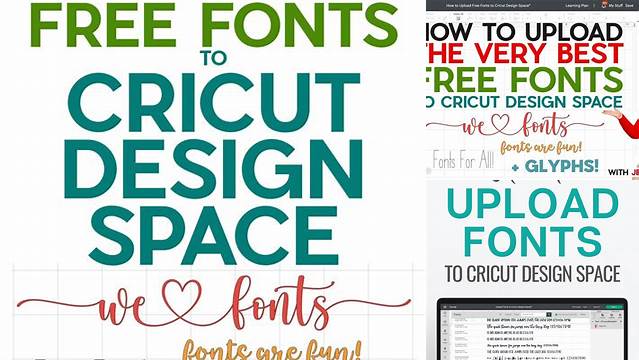
Upload Free Fonts To Cricut Design Space: A Quick Guide
Hey crafters! Want to give your Cricut projects a personal touch? Uploading free fonts to Cricut Design Space is the way to go. It's easier than you think, and opens up a world of creative possibilities. Let's dive in!
1. Finding the Perfect Free Font
Okay, first things first, let's talk about finding some awesome free fonts. There are tons of websites out there offering amazing fonts that won't cost you a dime. Some of my go-to spots include DaFont, FontSpace, and Google Fonts. When you're browsing, keep in mind what kind of projects you usually work on. Need something elegant for wedding invites? Or maybe something fun and playful for kids' crafts? Think about the overall aesthetic you're going for. Make sure to check the font license too! Most free fonts are free for personal use, but if you're planning to sell your creations, you'll want to make sure the license allows for commercial use. It's always better to be safe than sorry, guys! Once you've found a font that speaks to your soul, download it to your computer. Usually, it'll come in a ZIP file, so be prepared to unzip it.
Remember, your design is only as good as your font! Choosing the right one can really elevate your project from 'meh' to 'wow'. So, take your time, explore different options, and don't be afraid to experiment. Happy font hunting!
6. Understanding Font Licensing
Let's chat about something super important: font licensing. I know it might sound boring, but trust me, it's crucial to understand, especially if you're planning to sell anything you make with these fonts. Basically, a font license is a legal agreement that outlines how you're allowed to use a particular font. Some fonts are free for personal use only, which means you can use them for your own crafting projects, but you can't sell anything you make with them. Other fonts have commercial licenses, which means you can use them to create products that you sell. It's really important to check the license for each font before you use it, especially if you're planning to make money off your creations. You can usually find the license information on the website where you downloaded the font. Look for terms like "personal use," "commercial use," or "extended license." If you're not sure about the license, it's always best to err on the side of caution and contact the font designer or the website where you downloaded the font. Nobody wants to get into legal trouble over a font, so do your research and make sure you're using fonts legally and ethically.
7. Organizing Your Font Collection
Okay, so you've started downloading free fonts like crazy, and now your computer is a total font jungle. Don't worry, I've been there! It's time to get organized. Creating a system for organizing your fonts will save you tons of time and headaches in the long run. One simple way to organize your fonts is to create folders on your computer. You could have folders for different font styles, like "Script Fonts," "Sans Serif Fonts," and "Display Fonts." Or you could organize them by project type, like "Wedding Fonts" and "Kids' Fonts." Another great way to organize your fonts is to use a font management program. There are tons of font management programs out there, both free and paid. These programs allow you to preview your fonts, activate and deactivate them, and even tag them with keywords. This can make it super easy to find the perfect font for your project. No matter how you choose to organize your fonts, the key is to be consistent. Develop a system that works for you and stick to it. Your future self will thank you!
8. Exploring Different Font Styles
The world of fonts is vast and exciting! There are so many different font styles out there, each with its own unique personality. Exploring different font styles can really help you elevate your crafting projects. Some popular font styles include serif fonts, which have those little decorative strokes at the ends of the letters; sans serif fonts, which are clean and modern; script fonts, which mimic handwriting; and display fonts, which are bold and eye-catching. When choosing a font style for your project, think about the overall mood and message you want to convey. A serif font might be perfect for a formal invitation, while a script font could be great for a heartfelt card. Don't be afraid to experiment with different font styles and see what works best for you. You might be surprised at what you discover!
9. Pairing Fonts Like a Pro
Font pairing is an art, guys! Knowing how to combine different fonts effectively can take your designs to the next level. The key to successful font pairing is to create contrast. You want to choose fonts that complement each other without being too similar. A classic pairing is a serif font with a sans serif font. For example, you could use a serif font for your headings and a sans serif font for your body text. Another good rule of thumb is to choose one decorative font and one neutral font. This will prevent your design from looking too busy or overwhelming. There are tons of resources online that can help you with font pairing. Websites like FontPair and Canva's Font Combinations tool offer suggestions for fonts that work well together. Don't be afraid to experiment and try out different combinations until you find something you love. Trust your gut and have fun with it!
10. Creating Monograms with Free Fonts
Monograms are super popular in crafting, and using free fonts to create them is a fantastic way to personalize your projects. A monogram is a design that combines two or more letters, usually initials. They're often used on things like wedding invitations, personalized gifts, and home decor items. To create a monogram, start by choosing a font that you love. Script fonts and elegant serif fonts often work well for monograms. Then, use a graphics program like Cricut Design Space to arrange the letters in a visually appealing way. You can overlap the letters, create a circular design, or add decorative elements like swirls and flourishes. There are tons of monogram tutorials online that can give you inspiration. Get creative and have fun with it!
11. Using Fonts for Quotes and Sayings
Adding quotes and sayings to your crafting projects is a great way to express yourself and add a personal touch. Choosing the right font can really make your quote stand out. When selecting a font for a quote, consider the tone and message of the quote. A playful quote might call for a fun and whimsical font, while an inspirational quote might look best in a classic and elegant font. Think about the overall design of your project and choose a font that complements it. Make sure the font is easy to read, even at smaller sizes. Experiment with different font sizes and styles to create visual interest.
12. Designing Invitations with Free Fonts
Creating your own invitations is a fun and affordable way to personalize your special events. Using free fonts can help you create stunning invitations without breaking the bank. When designing invitations, choose fonts that reflect the style and theme of your event. For a formal wedding invitation, you might choose an elegant script font or a classic serif font. For a casual birthday party invitation, you could use a fun and playful font. Pay attention to the readability of your fonts, especially for important details like the date, time, and location. Use font pairing to create visual interest and hierarchy.
13. Making Labels with Free Fonts
Labels are a great way to organize your home and add a touch of style to your everyday items. Using free fonts to create your own labels is a simple and budget-friendly way to personalize your space. Choose fonts that are easy to read and that fit the style of your home decor. For a modern kitchen, you might choose a clean sans serif font. For a rustic pantry, you could use a vintage-inspired font. Consider the size of your labels and choose a font that is legible at that size. Use a label maker or print your labels onto sticker paper.
14. Creating Stickers with Free Fonts
Stickers are a fun and versatile way to add personality to your crafts and everyday items. Using free fonts to create your own stickers allows you to customize them with your favorite quotes, sayings, and designs. Choose fonts that are bold and eye-catching, especially if your stickers are small. Consider the color scheme of your stickers and choose fonts that complement it. Print your stickers onto sticker paper and cut them out with scissors or a cutting machine.
15. Designing Cards with Free Fonts
Making your own cards is a heartfelt way to show someone you care. Using free fonts can help you create unique and personalized cards for any occasion. Choose fonts that reflect the sentiment of your card. For a sympathy card, you might choose a simple and understated font. For a birthday card, you could use a fun and festive font. Add decorative elements like borders, embellishments, and illustrations to enhance your design.
16. Personalizing Gifts with Free Fonts
Adding a personal touch to your gifts is a great way to make them extra special. Using free fonts to personalize gifts can create a lasting impression. Consider the recipient's personality and choose fonts that reflect their style. For a book lover, you might personalize a bookmark with a quote in an elegant serif font. For a coffee enthusiast, you could personalize a mug with their name in a modern sans serif font. Get creative and think outside the box!
17. Designing T-Shirts with Free Fonts
Designing your own t-shirts is a fun way to express your creativity and create unique apparel. Using free fonts can help you create eye-catching t-shirt designs. Choose fonts that are bold and legible, especially if your design features a lot of text. Consider the color of your t-shirt and choose fonts that contrast well with it. Use a heat transfer vinyl and a heat press to apply your design to the t-shirt.
18. Creating Wall Art with Free Fonts
Wall art is a great way to personalize your home decor. Using free fonts to create your own wall art allows you to customize your space with your favorite quotes, sayings, and designs. Choose fonts that complement the style of your home decor. For a modern living room, you might choose a minimalist sans serif font. For a bohemian bedroom, you could use a whimsical script font. Print your design onto canvas or paper and frame it.
19. Making Stencils with Free Fonts
Stencils are a versatile tool for creating all sorts of crafts and DIY projects. Using free fonts to create your own stencils allows you to customize them with your favorite letters, numbers, and symbols. Choose fonts that are bold and easy to cut out. Print your design onto stencil material and cut it out with a craft knife or a cutting machine.
20. Using Fonts in Logo Design (Personal Use)
While commercial logo design often requires specific licensing, using free fonts for personal logos or branding is a great way to create a unique identity. Choose fonts that reflect the personality of your brand or project. Consider the overall aesthetic you want to convey and select fonts that align with it. Keep your logo simple and memorable.
21. Exploring Font Weight and Styles
Font weight refers to the thickness of the font, ranging from light to bold. Font style refers to variations like italic, oblique, or condensed. Experimenting with different font weights and styles can add visual interest and hierarchy to your designs. Use bold fonts to emphasize important words or phrases. Use italic fonts to add a touch of elegance or to differentiate text.
22. Kerning and Letter Spacing
Kerning refers to the spacing between individual letters, while letter spacing refers to the overall spacing between all letters in a word or phrase. Adjusting kerning and letter spacing can improve the readability and visual appeal of your text. Pay attention to the spacing between letters that are close together, such as "AV" or "WA." Increase letter spacing to make text more airy and readable.
23. Leading and Line Height
Leading, also known as line height, refers to the vertical space between lines of text. Adjusting leading can improve the readability of your text and create a more visually appealing layout. Increase leading to make text more open and airy. Decrease leading to make text more compact.
24. Color and Font Choice
The color of your font can have a significant impact on its readability and visual appeal. Choose colors that contrast well with the background. Consider the overall color scheme of your design and select fonts that complement it. Use color to highlight important words or phrases.
25. Font Size and Readability
Font size is crucial for readability. Choose a font size that is appropriate for the viewing distance and the target audience. Use larger font sizes for headings and titles. Use smaller font sizes for body text. Test your designs on different devices and screen sizes to ensure readability.
26. Using Free Font Generators
Free font generators can be a fun way to create unique and personalized fonts. However, keep in mind that these fonts may not be of the highest quality and may not be suitable for professional use. Use font generators for personal projects or for creating unique designs for social media.
27. Finding Free Fonts for Commercial Use
Finding free fonts for commercial use can be a bit more challenging, but it's definitely possible. Look for fonts with licenses that allow commercial use or public domain fonts. Check the font license carefully before using it in any commercial projects.
28. Ethical Considerations When Using Free Fonts
When using free fonts, it's important to be mindful of ethical considerations. Always respect the font designer's rights and follow the terms of the font license. Don't use fonts in a way that could be harmful or offensive to others.
29. Alternatives to Free Fonts
If you're looking for high-quality fonts for commercial use, consider purchasing fonts from reputable font foundries. There are many affordable font options available. Subscribing to a font service like Adobe Fonts can also be a great way to access a wide variety of fonts.
30. Staying Updated on Font Trends
Font trends are constantly evolving. Staying updated on the latest font trends can help you create designs that are modern and stylish. Follow font designers and typographers on social media. Read design blogs and magazines to stay informed about new fonts and font trends.
So there you have it! Uploading free fonts to Cricut Design Space is a breeze once you know the steps. Now go forth and create some amazing projects with your newfound font collection! Happy crafting, guys!